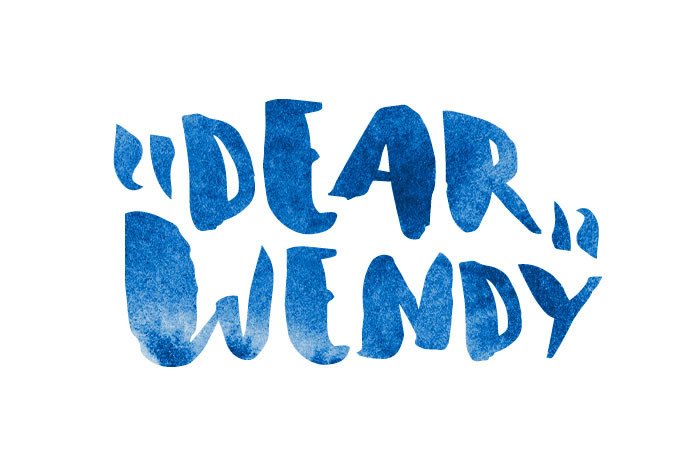
Welcome to the enchanting world of Dear Wendy, a paint-like typeface that exudes a thick, bold, and utterly captivating style. Created by the talented Noe Araujo, Dear Wendy isn't just a font; it's an artistic expression that will ignite your creativity and transform your designs into captivating masterpieces.
With Dear Wendy, you'll embark on a typographic journey like no other. Its thick strokes dance across the page or screen, leaving a trail of bold elegance that demands attention. Whether you're crafting eye-catching T-shirt designs, designing impactful posters, or creating unforgettable logos, Dear Wendy will effortlessly elevate your work.
Unleash your imagination and let Dear Wendy infuse your designs with a touch of artistic flair. Its bold, playful nature is perfect for capturing the essence of adventure, joy, and self-expression. From whimsical illustrations to quirky branding, Dear Wendy is your creative companion, ready to bring your vision to life.
Dive into the depths of Dear Wendy's versatility and discover a font family that effortlessly adapts to your every need. Whether you're designing for print or digital, Dear Wendy's captivating style shines through. Its bold strokes command attention on posters and billboards, while its playful charm adds a touch of whimsy to websites and social media graphics.
Join the creative revolution and embrace Dear Wendy, the paint-like typeface that will transform your designs into awe-inspiring works of art. Its bold style and artistic flair will captivate your audience and leave a lasting impression.